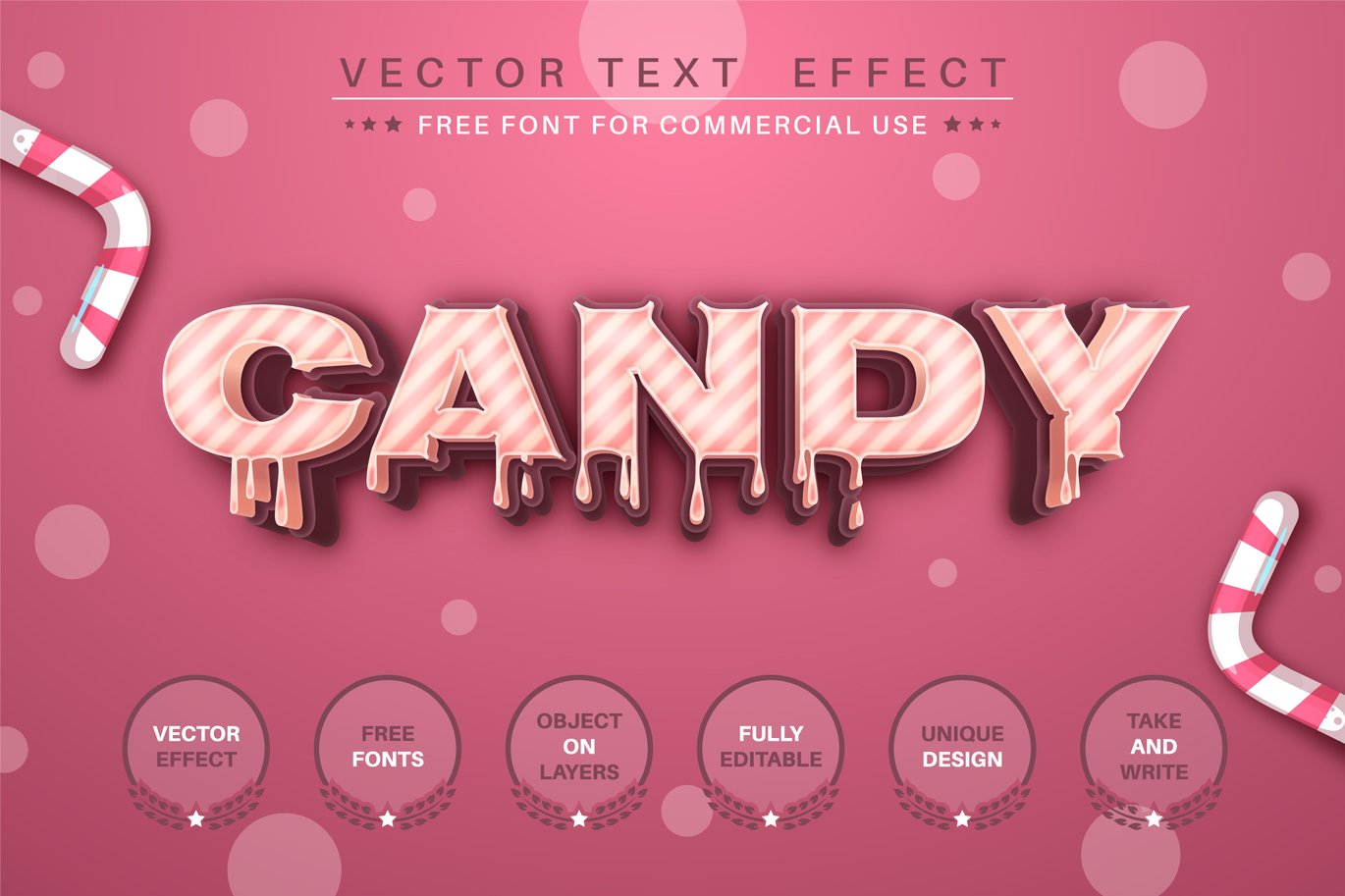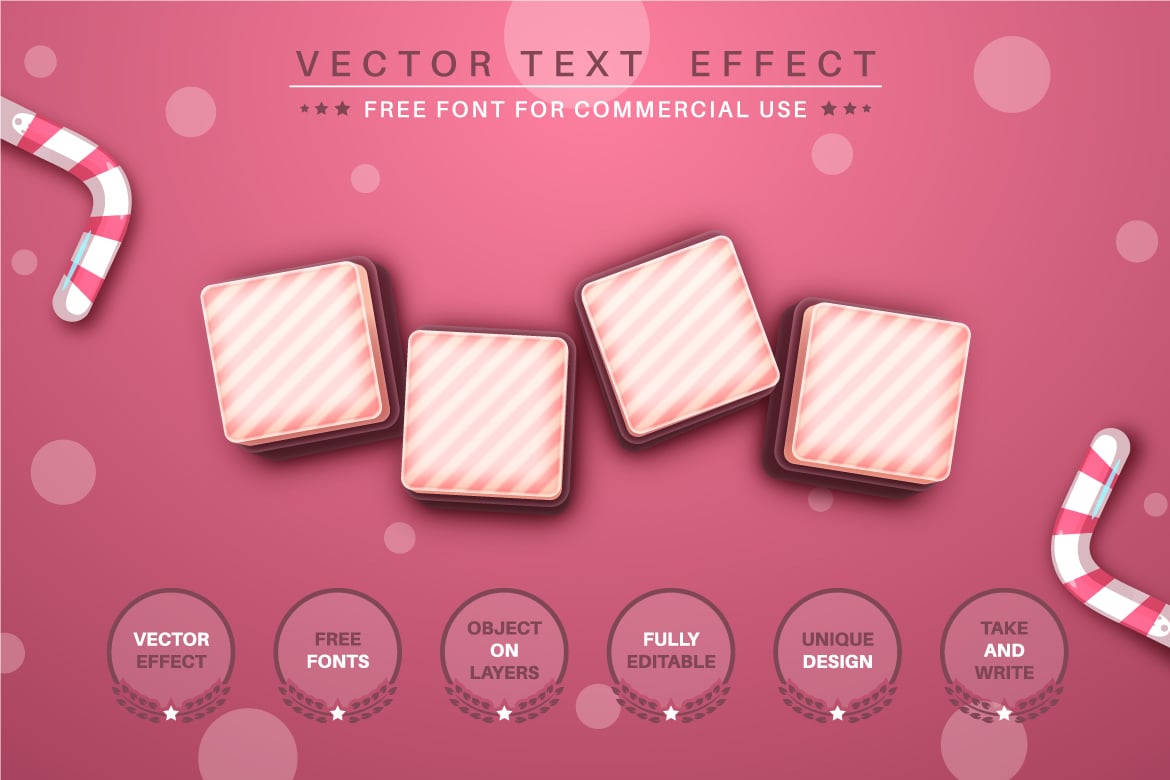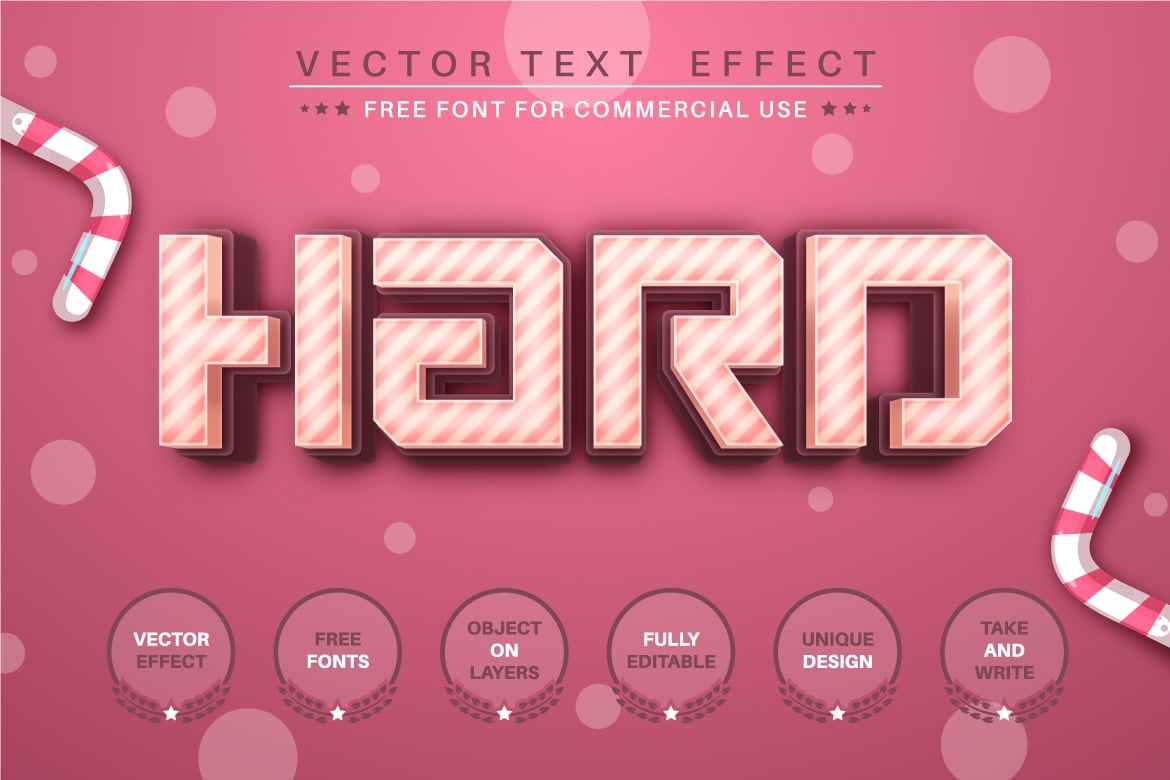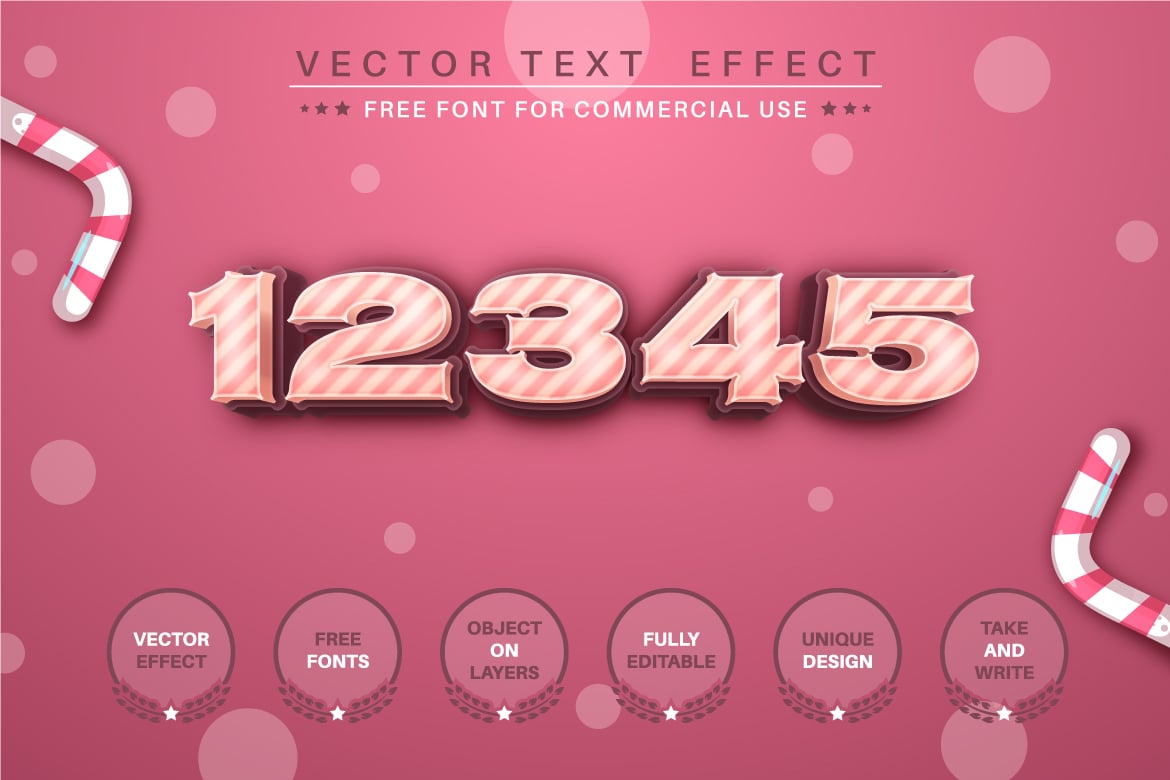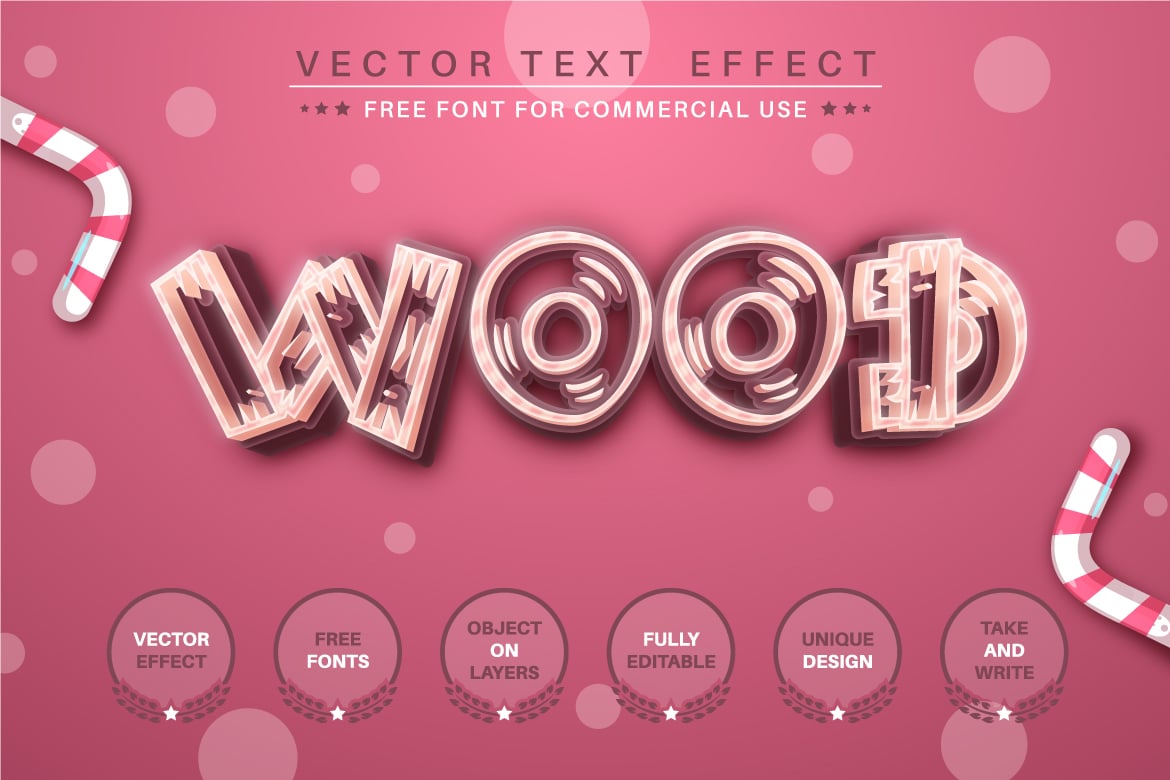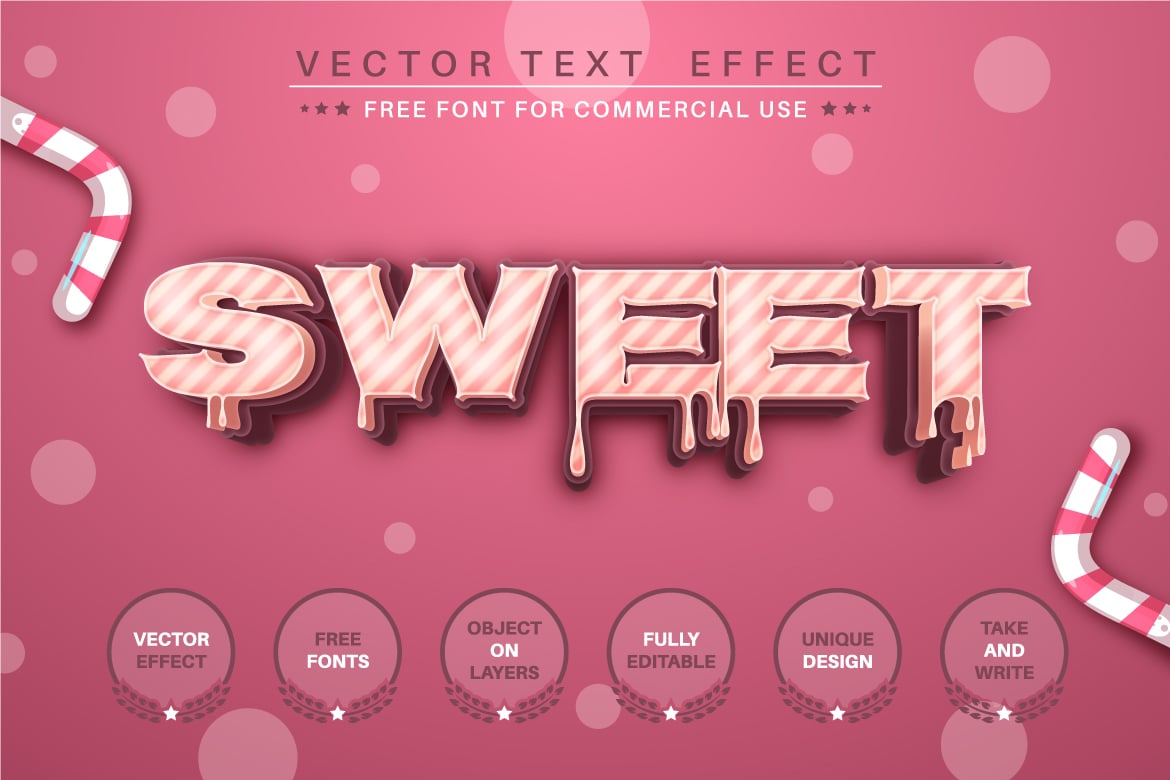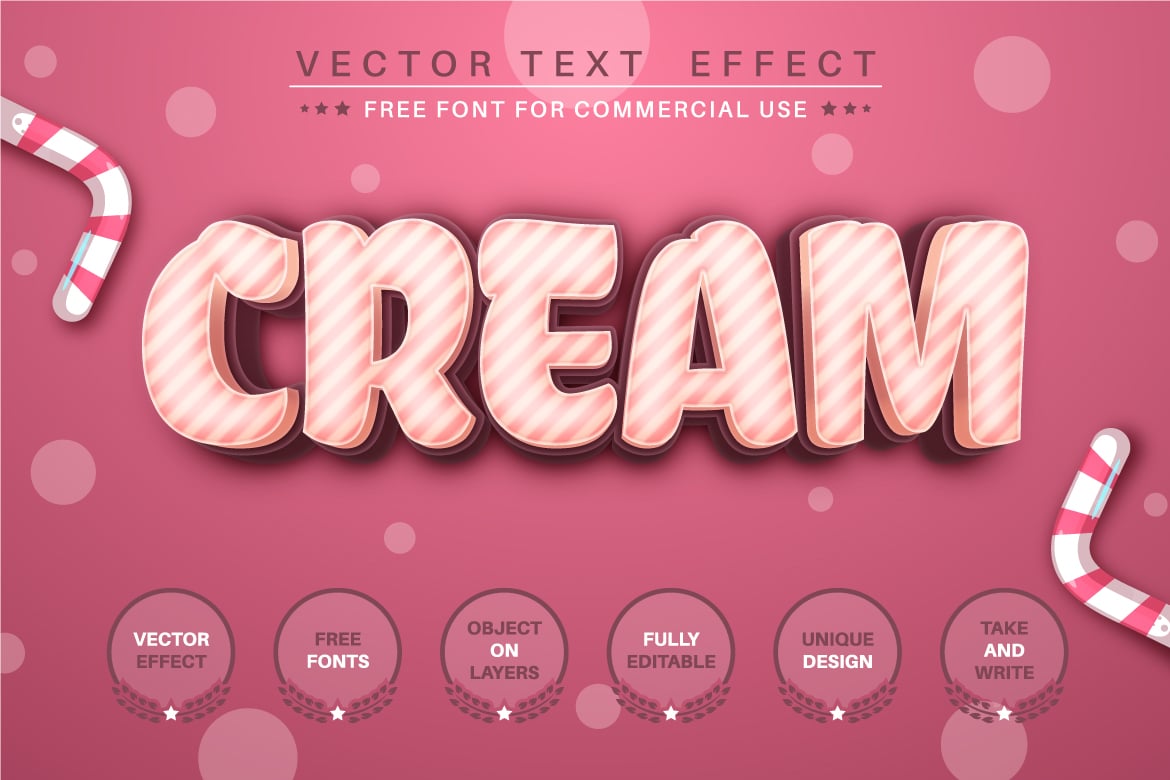
Candy – editable text effect, font style
Hello! I’m happy to introduce my new text effect “Candy”. Just write your word and the effect will apply! Be as creative as you like to be in expressing yourself using this unique “Candy”. Effect is perfect for any project that needs a unique handy touch whatever else your imagination leads you to!